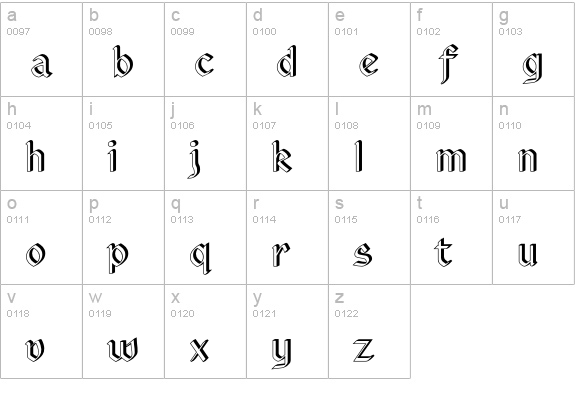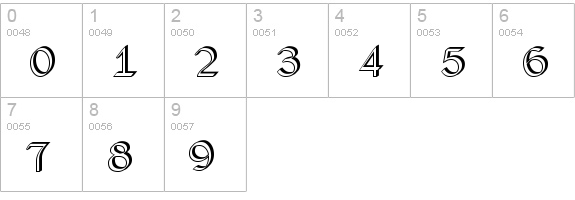
Eastgothic Font Details
Introducing Eastgothic, a mesmerizing font that effortlessly balances elegance and boldness. With its intricate and Gothic-inspired letterforms, Eastgothic captures the essence of old-world charm while exuding a contemporary twist. This versatile typeface is perfect for any project that requires a touch of sophistication and an air of mystery. The Eastgothic font boasts a wide range of character variations, from sharp edges and ornate flourishes to delicate curves and graceful swashes. Each letter is meticulously crafted, resulting in a harmonious blend of classic elegance and modern appeal. Whether you're designing a logo, creating wedding invitations, or crafting a striking poster, Eastgothic will lend a unique and captivating touch to your creative endeavors. What sets Eastgothic apart is not only its stunning aesthetics but also its accessibility. This remarkable font is freely available to download at FontsMarket.com. Yes, you read that right! You can now add this extraordinary font to your collection without any cost. It's a rare opportunity to acquire a high-quality typeface that not only elevates your designs but also fits perfectly within your budget. With Eastgothic, you have the freedom to explore endless possibilities. Let your imagination soar as you experiment with different letter combinations and styles. Create eye-catching headlines, elegant typography, or intricate monograms. The choice is yours, and with Eastgothic, you have the tools to make a lasting impression. So, why wait? Take advantage of this incredible offer and download the Eastgothic font today, exclusively at FontsMarket.com. Unleash your creativity and transform your designs into works of art with this captivating and freely accessible typeface.